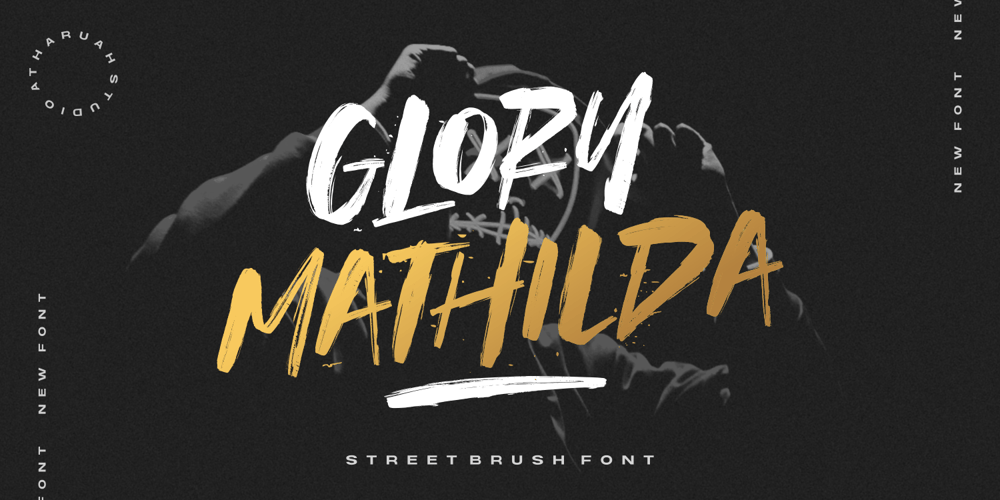
Glory Mathilda Font Family was designed by Andre Bima Falah Rabbani and published by Atharuah Studios. Glory Mathilda contains 1 styles and family package options. Introducing Glory Mathilda! An energetic brush stroke fonts.With two sets of all-caps letters, Glory Mathilda can support your creativity on your logo design, brand imagery, quotes, merchandise, product packaging, music projects, social media posts, etc.Glory Mathilda also has ten swashes that you can access in each alternative letter A-J.That’s it! I hope you enjoy it.You can also say hello to me on Instagram: https://www.instagram.com/atharuah_Thank You!